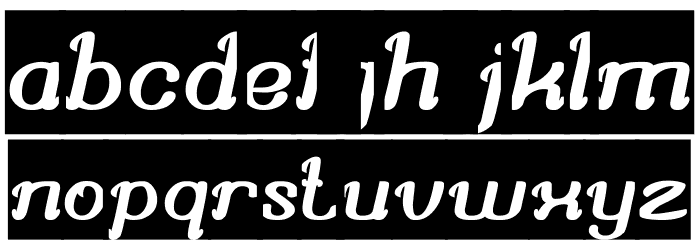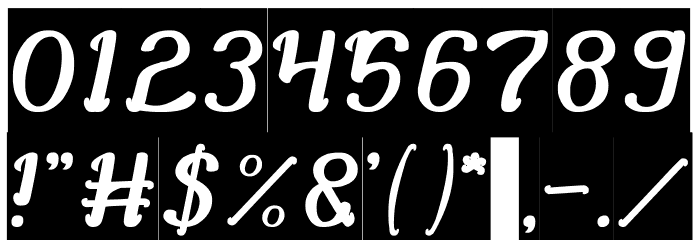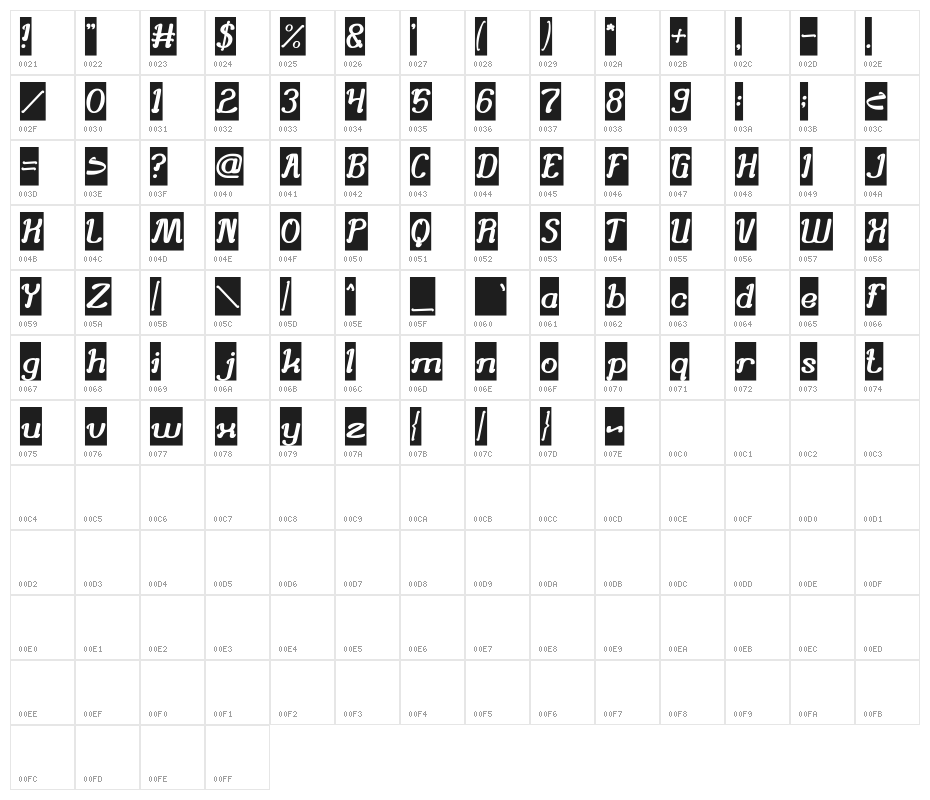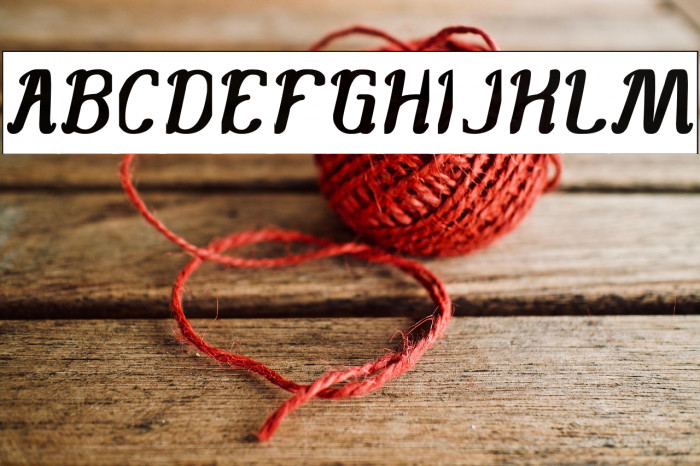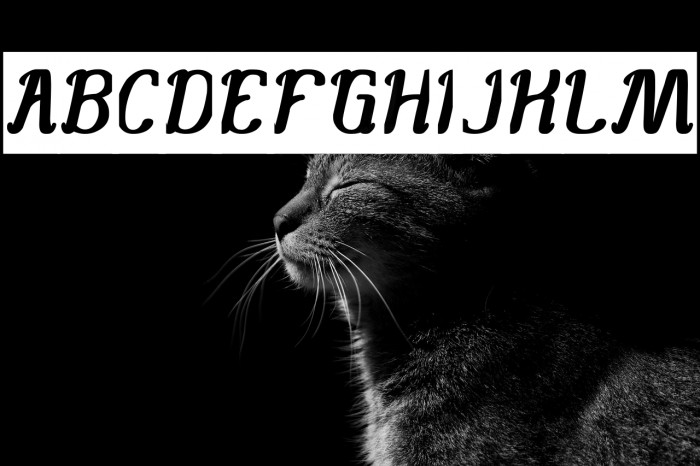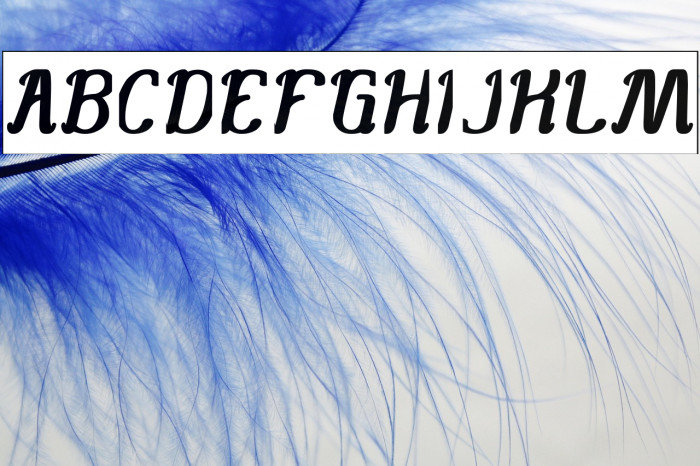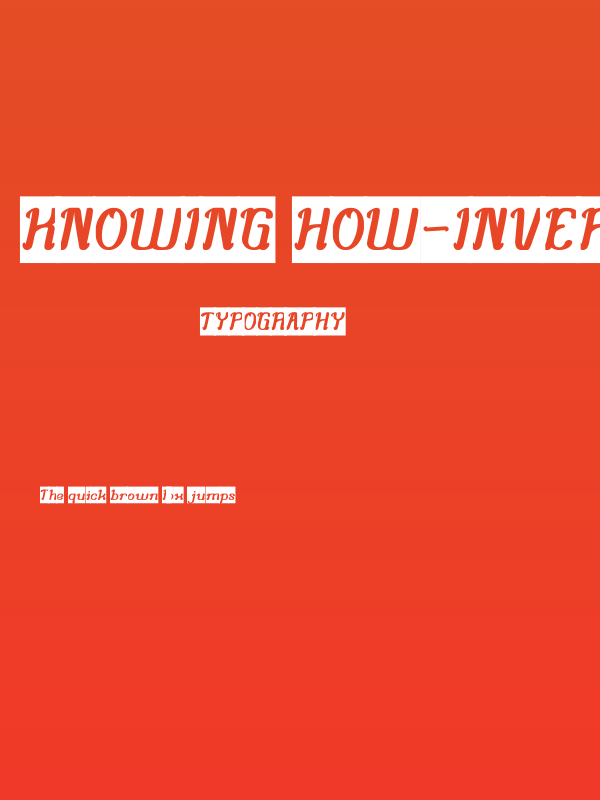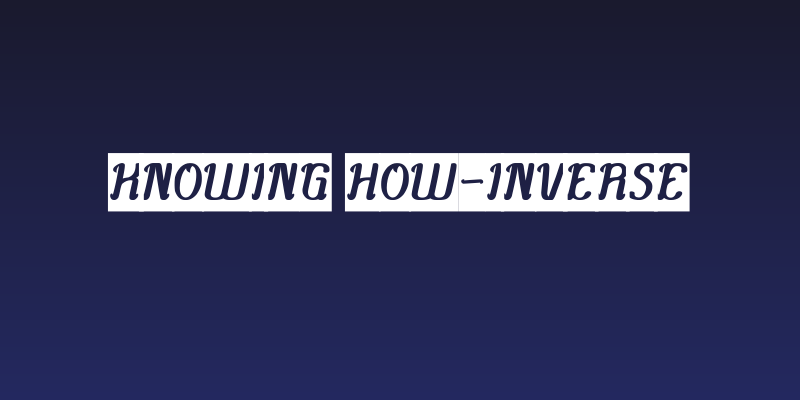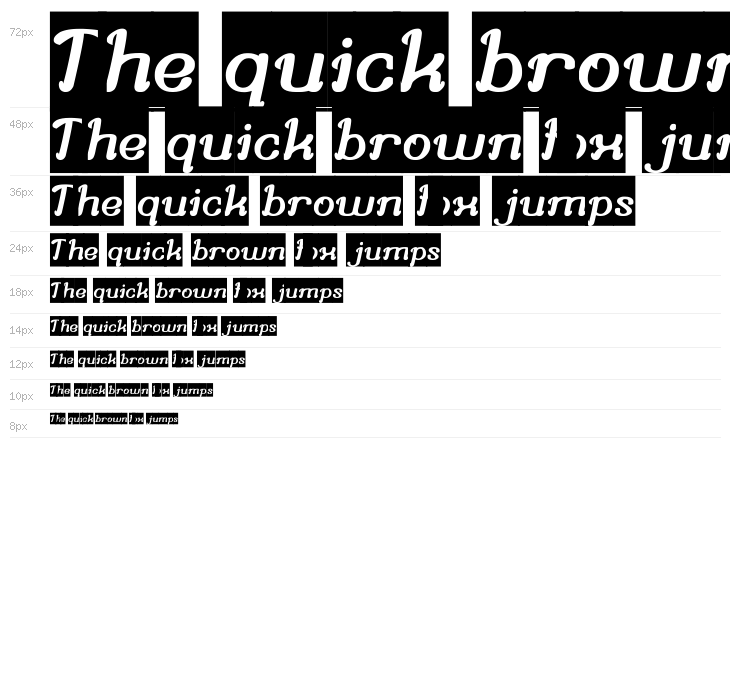
Knowing How-Inverse Font
This font features a unique blend of classic and modern elements, characterized by its elegant, flowing script style. The uppercase letters are bold and slightly slanted, with distinctive flourishes that add a touch of sophistication. The lowercase letters maintain a consistent flow, with rounded edges and smooth curves that enhance readability. Numbers and special characters are designed to complement the overall aesthetic, maintaining the same fluidity and grace. The font's design is both decorative and functional, making it suitable for a variety of creative applications.
An elegant, flowing script font with classic and modern elements.
- Font: Knowing How-Inverse
- Proposed Projects: Ideal for wedding invitations, greeting cards, branding projects, and elegant signage.
- Category: Script
- Use Case: Logos, Invitations, Decorative text